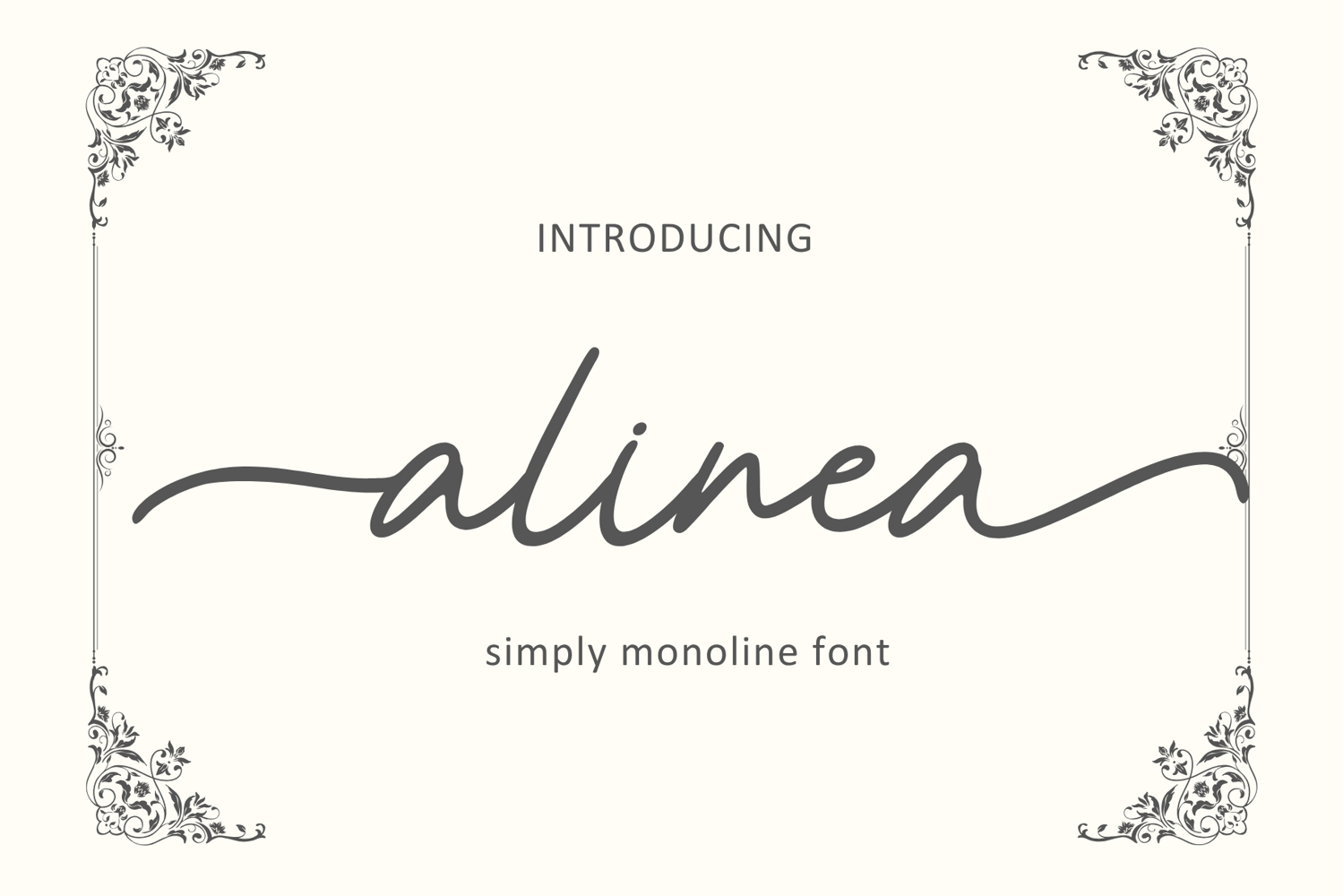
Created By Coretanletter
alinea font
Alinea is a refined modern script font that blends simplicity with elegance. Its clean lines and fluid movement make it perfect for luxury branding, signature logos, and contemporary design projects that demand a sophisticated touch.